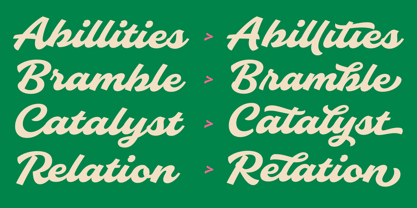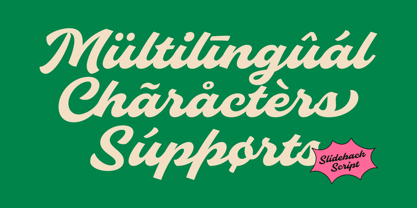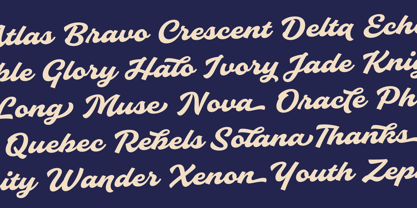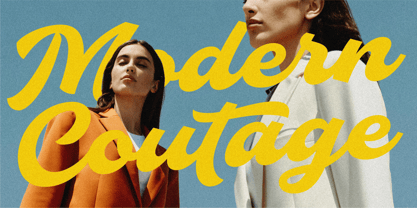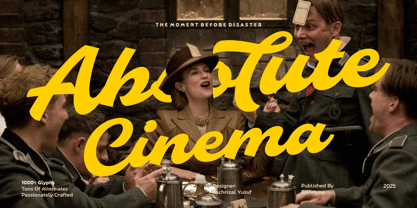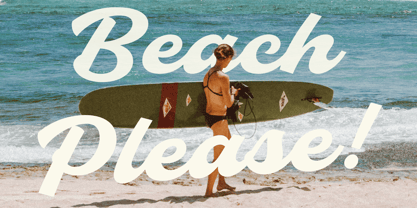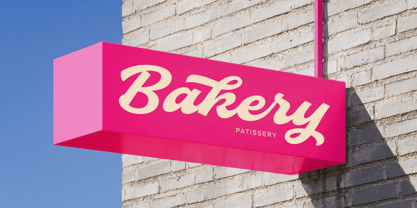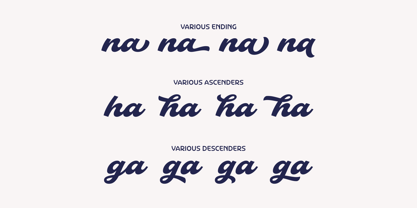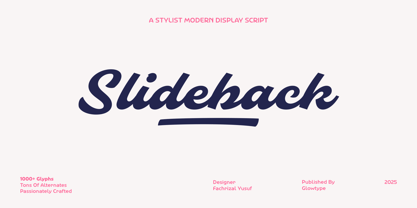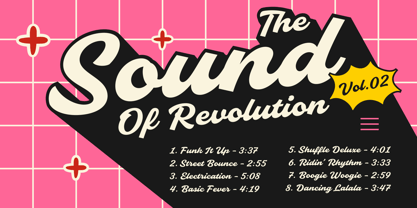
Slideback
by Glowtype
The Slideback Font Family was designed by Fachrizal Yusuf and published by Glowtype. Slideback contains 1 styles. More about this family
Slideback is a bold and stylish modern script font that slides effortlessly between retro charm and contemporary flair. Inspired by vintage signage and hand-painted lettering, its smooth curves and flowing connections bring a sense of rhythm and groove to every word. With over 1000+ glyphs, alternates, and underline swashes, Slideback is carefully crafted for expressive branding, display design, and standout headlines. Whether you're designing posters, packaging, or logos, Slideback delivers a confident stroke of nostalgia wrapped in a modern twist.
You can acces underline by typing underscore1 to underscore9 and chose which you like. Each lowercase has much alternates to play with to fulfill your design and typography needs.
Step into the groove and take your typography back — with Slideback.